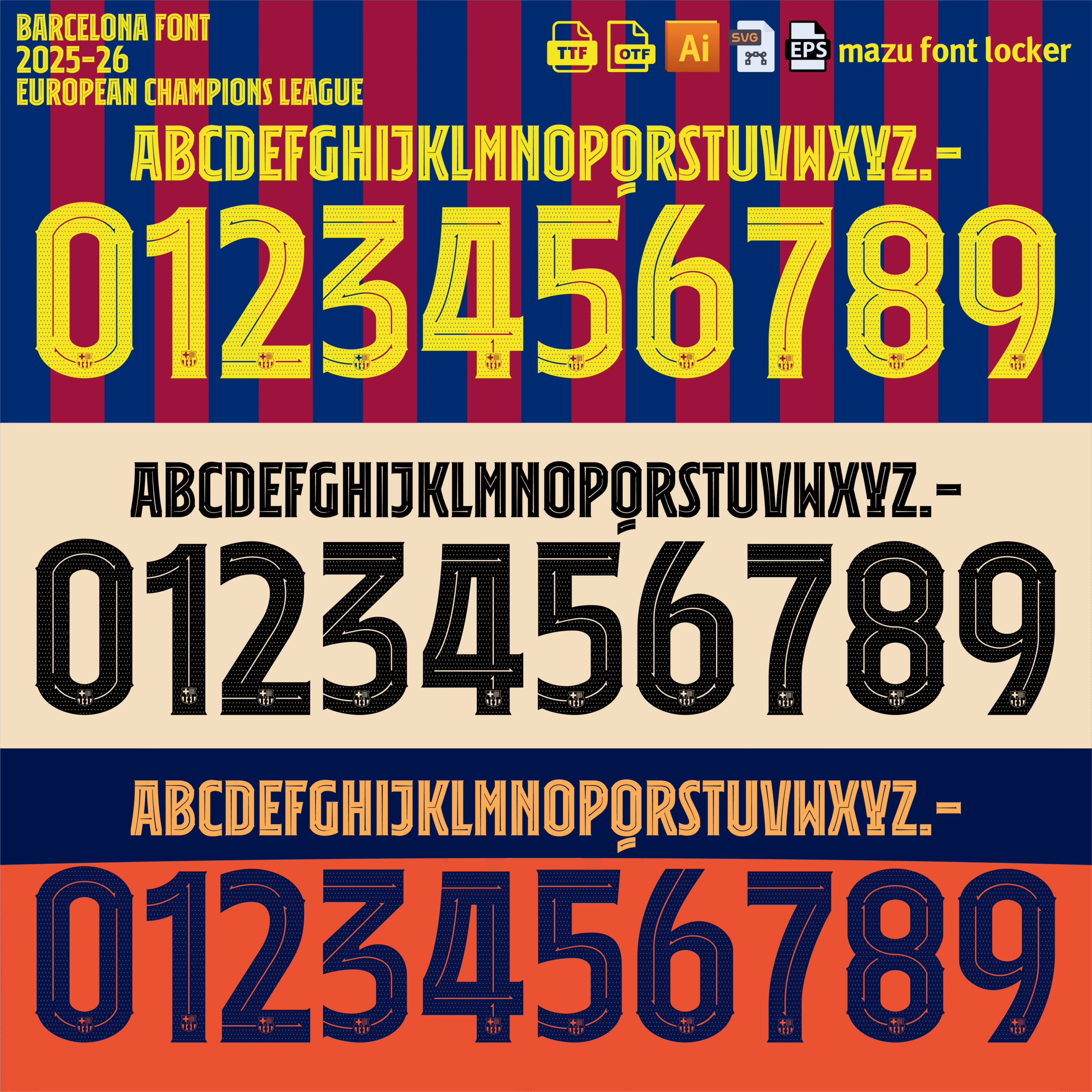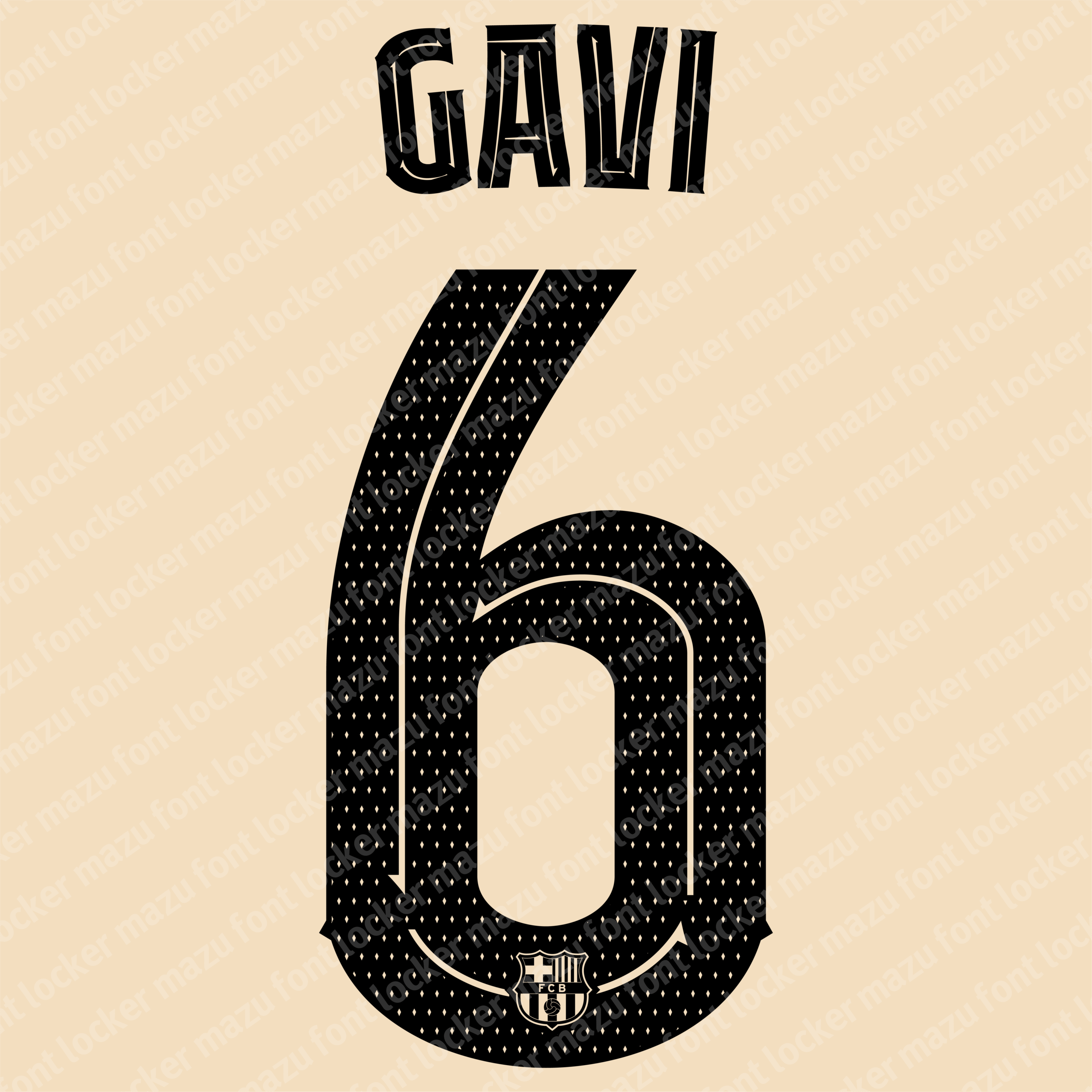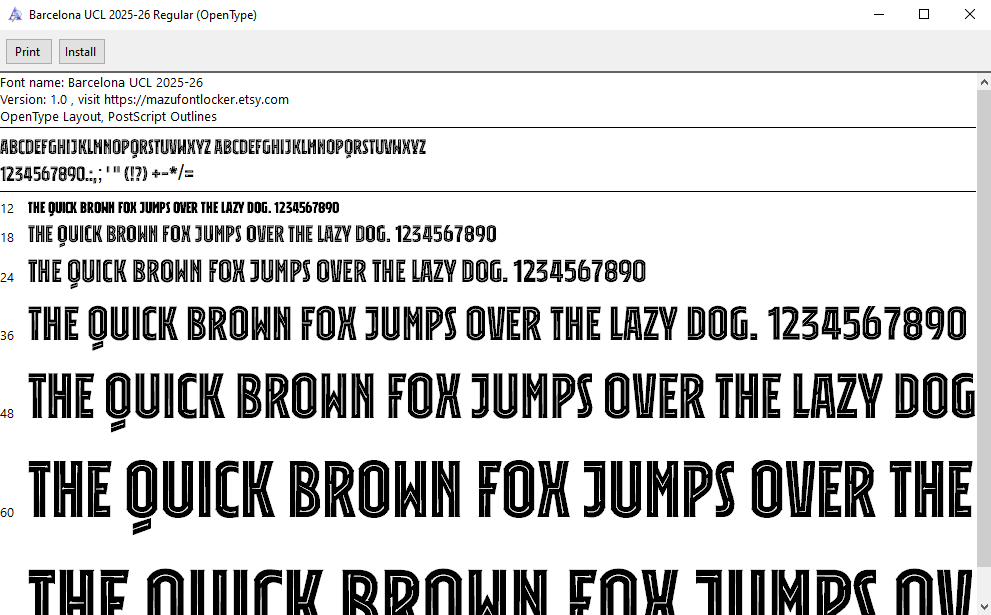
Barcelona 2025-26 UCL Font Vector
Barcelona 2025-26 UCL font, names and numbers, fully editable VECTOR file for customisation.
Complete design with the Barcelona 2025-26 UCL numbering and lettering for the Incoming European Champion League Match.